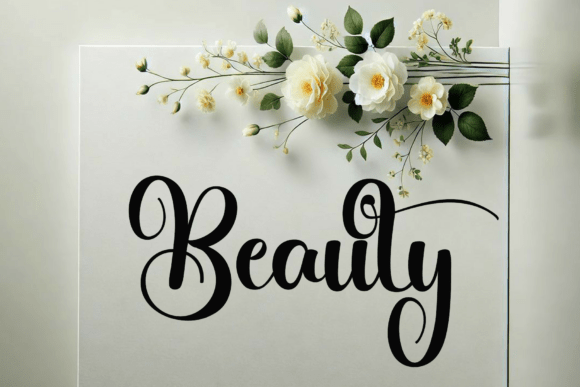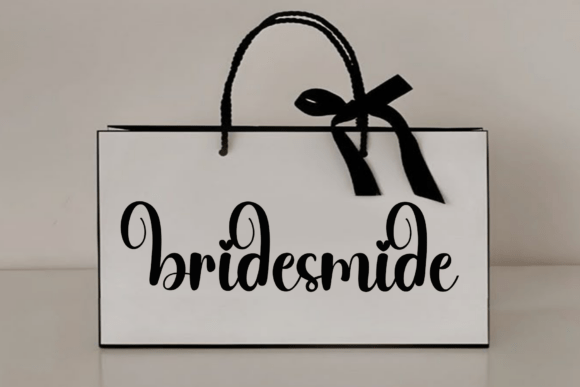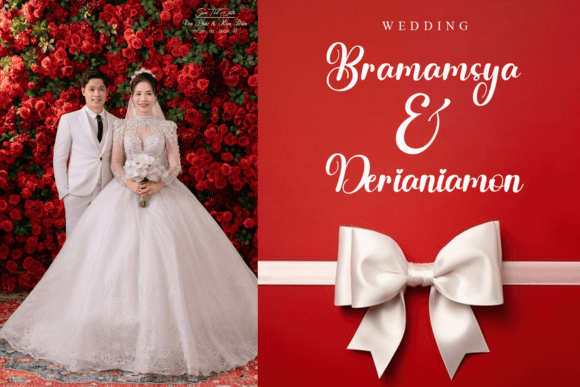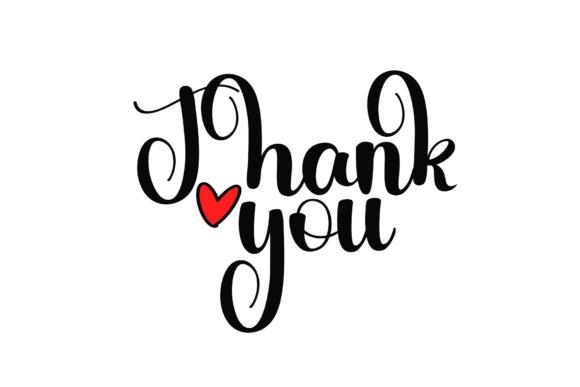
Baby Heart Font: A Timeless Classic for Modern Designs
In the world of typography, few fonts capture the essence of sweetness and elegance as perfectly as the Baby Heart font. This beautiful, cursive handwritten font is inspired by timeless classic calligraphy, yet it boasts a contemporary atmosphere that makes it incredibly versatile. Whether you’re a designer looking for the perfect font for your next project or a crafter seeking a stylish and unique addition to your creations, Baby Heart is sure to impress.
The Inspiration Behind Baby Heart
Baby Heart font draws its inspiration from the classic calligraphy styles that have been cherished for centuries. The creator of this font has skillfully blended traditional techniques with modern sensibilities, resulting in a typeface that is both nostalgic and fresh. The outcome is a font that exudes warmth, love, and a touch of sophistication, making it ideal for a wide range of applications.
Key Features of Baby Heart Font
- Sweet and Cursive: Baby Heart features a beautifully cursive script that adds a touch of sweetness to any design. Its flowing lines and curves make it perfect for creating elegant and eye-catching text.
- Contemporary Atmosphere: Despite being inspired by classic calligraphy, Baby Heart has a distinctly modern feel. Its clean lines and impeccable form ensure that it looks great in both digital and print formats.
- Versatility: One of the standout features of Baby Heart is its versatility. It can be used in a wide range of contexts, from wedding invitations and greeting cards to branding and advertising.
- Legibility: The font’s clear and legible design makes it easy to read, even at smaller sizes. This is particularly important for designers who need to ensure that their text is accessible to all audiences.
Uses of Baby Heart Font
The possibilities for using Baby Heart font are endless. Here are a few ideas to get you started:
- Wedding and Event Stationery: Create beautiful wedding invitations, save-the-date cards, and other event stationery with a personal touch.
- Greeting Cards: Add a touch of elegance to your greeting cards for special occasions like birthdays, anniversaries, and holidays.
- Branding and Packaging: Use Baby Heart to create a unique and memorable brand identity for your business or product.
- Digital Content: Incorporate Baby Heart into your digital content, such as social media graphics, blog posts, and email newsletters, to add a touch of personality and style.
Tips for Using Baby Heart Font
To get the most out of Baby Heart font, here are a few tips to keep in mind:
- Pair with Other Fonts: Experiment with pairing Baby Heart with other fonts to create a unique and visually appealing combination.
- Adjust Font Size: Don’t be afraid to adjust the font size to suit your design needs. Baby Heart looks great at both large and small sizes.
- Play with Colors: Try out different colors to see how they affect the overall look and feel of your design. Baby Heart works well with a range of colors, from soft pastels to rich jewel tones.
Baby Heart font is a beautiful and versatile typeface that is sure to capture the hearts of designers and crafters alike. Its unique blend of classic calligraphy and modern sensibilities makes it perfect for a wide range of applications. Whether you’re looking to add a touch of elegance to your designs or simply want to create something truly special, Baby Heart is an excellent choice. So why not give it a try and see the magic for yourself?